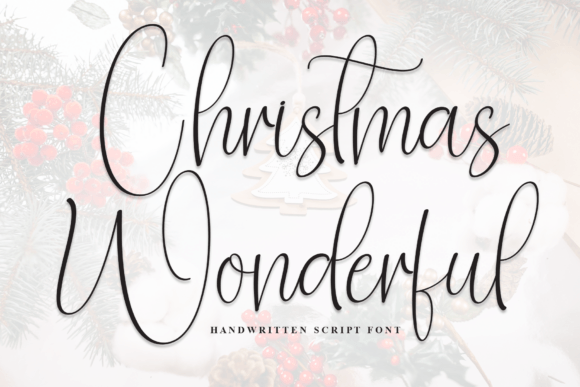
The Perfect Font for a Festive Season
As I sat sipping hot cocoa by the fireplace, flipping through old family Christmas cards, I stumbled upon a beautiful handwritten font that instantly brought a smile to my face. It was the perfect combination of elegance and whimsy, and I couldn’t help but wonder where I could find it.
After some digging, I discovered the “Christmas Wonderful Font” – a delicate, thin handwritten font that captures the warmth and joy of the holiday season. Its purpose is to add a personal touch to festive cards, invitations, and decorations, making it a valuable asset for designers looking to create unique and memorable holiday content.
Christmas Wonderful Font Key Features
- Font Family: A festive collection of 12 fonts, each with its unique style and character.
- Unique Characteristics: Includes a range of ornaments, borders, and symbols to add a touch of festive flair to designs.
Designer Review: Christmas Wonderful Font
As a designer, I was excited to dive into the Christmas Wonderful Font, hoping it would bring some holiday cheer to my projects. Here’s my honest review.
- The font has a clear and festive feel to it, perfect for holiday-themed designs.
- The bold and italic styles are well-designed and easy to read.
- The font supports a wide range of languages, making it a great option for international designs.
- The regular style feels a bit thin and may not be suitable for large text or headings.
- The font lacks a sans-serif style, which may limit its versatility in certain design contexts.
- The font does not include a comprehensive character set, which may cause issues with certain characters or languages.
Overall, I think the Christmas Wonderful Font is a solid choice for holiday-themed designs, but it may not be the best option for more general design projects. With some additional development and expansion, this font could be a true holiday classic.
Use the Christmas Wonderful Font to create festive and eye-catching designs, such as holiday cards, gift tags, and social media graphics.
Combine the font with other festive elements, such as holly, snowflakes, and Christmas trees, to create a cohesive and seasonal look.
The Christmas Wonderful Font is perfect for:
Creating holiday invitations and party invitations.
Designing festive social media graphics and ads.
Adding a touch of holiday cheer to business communications and marketing materials.